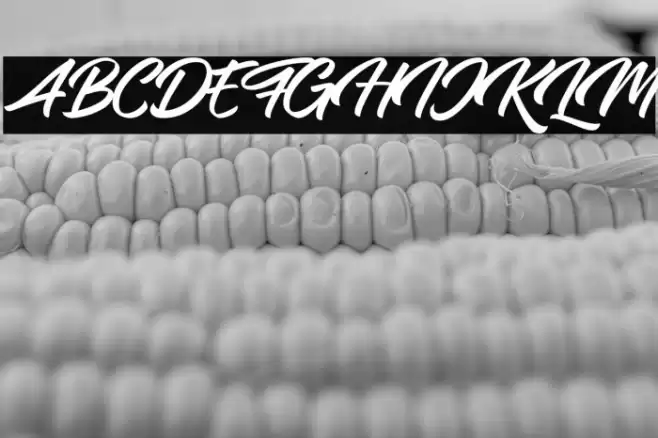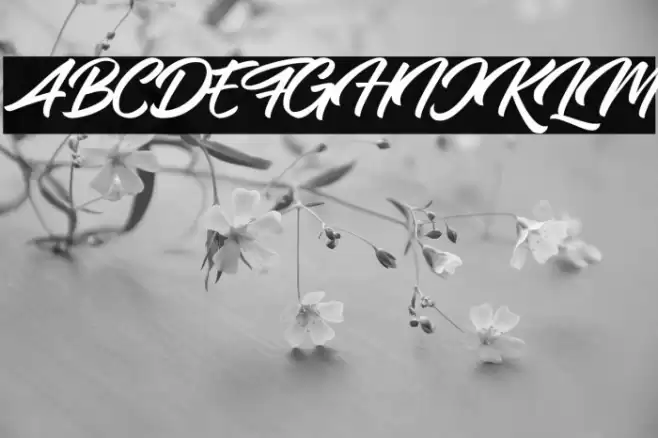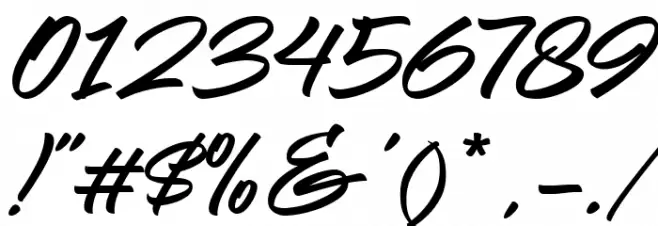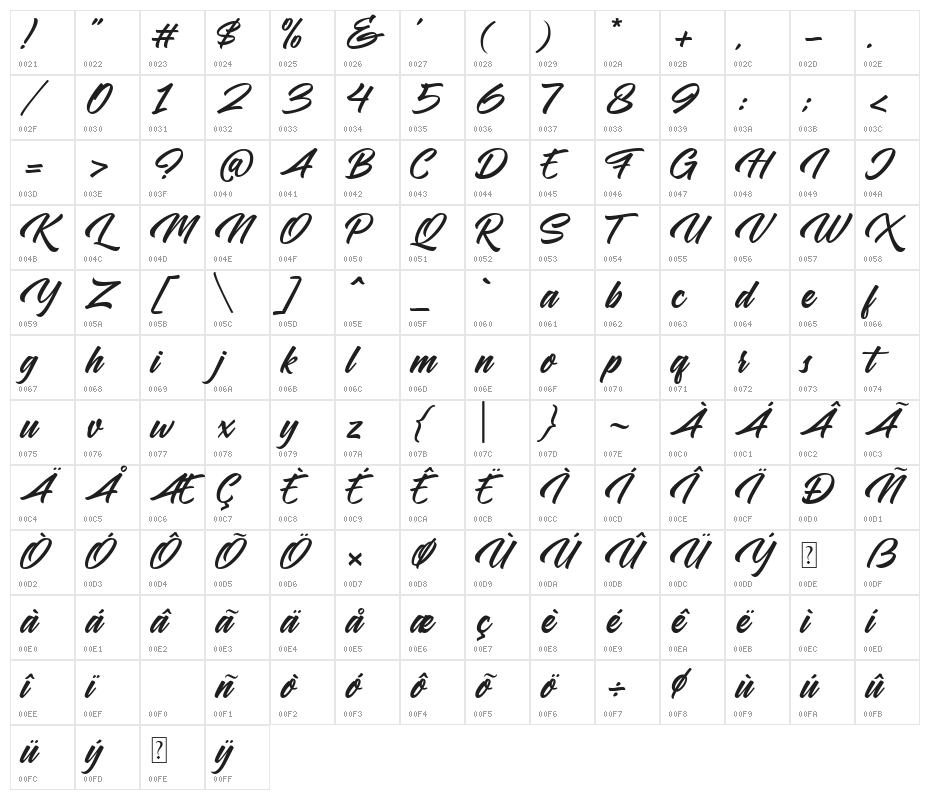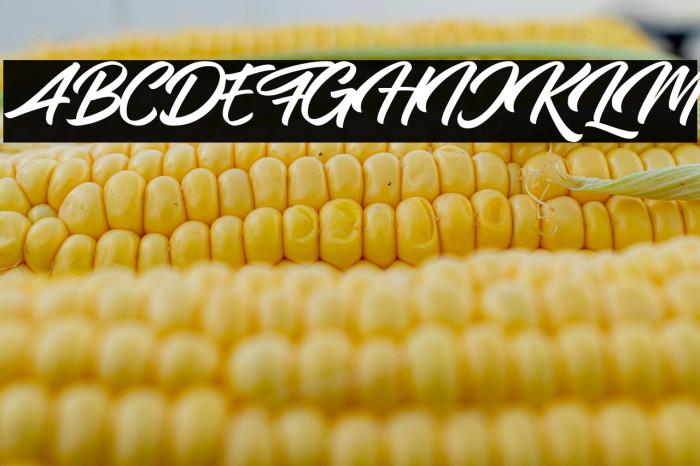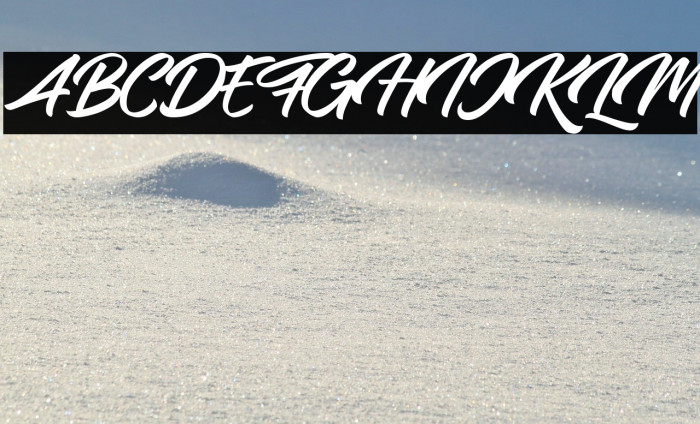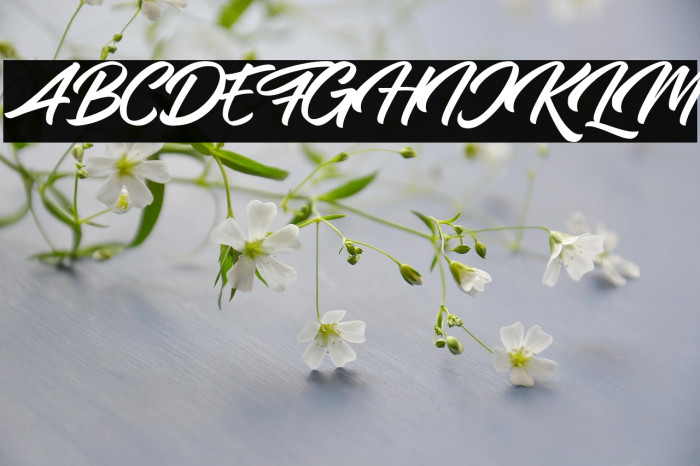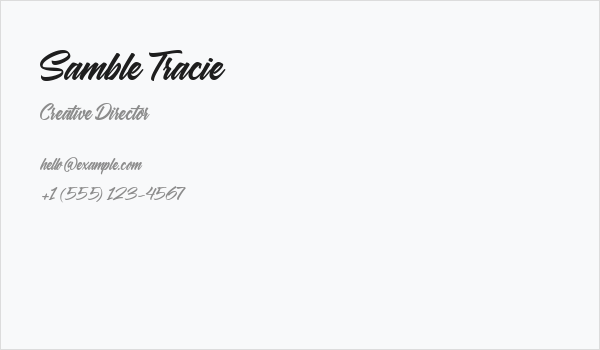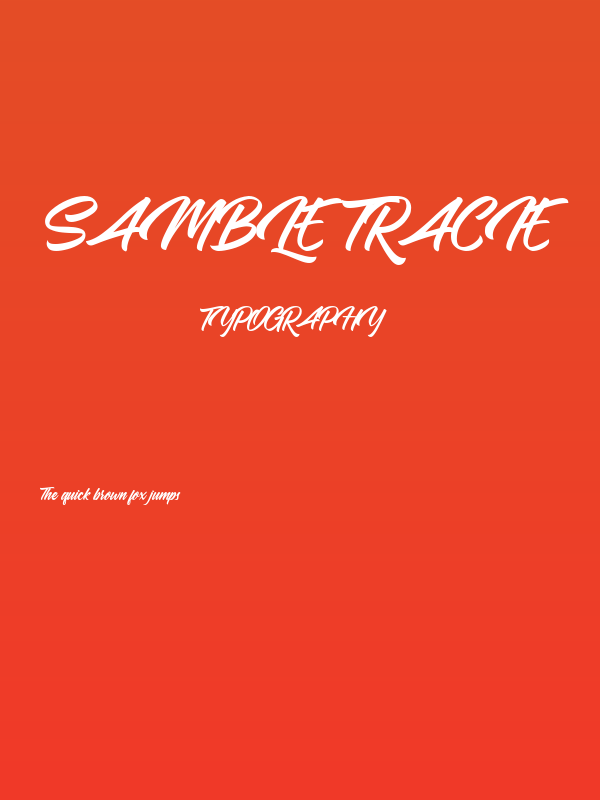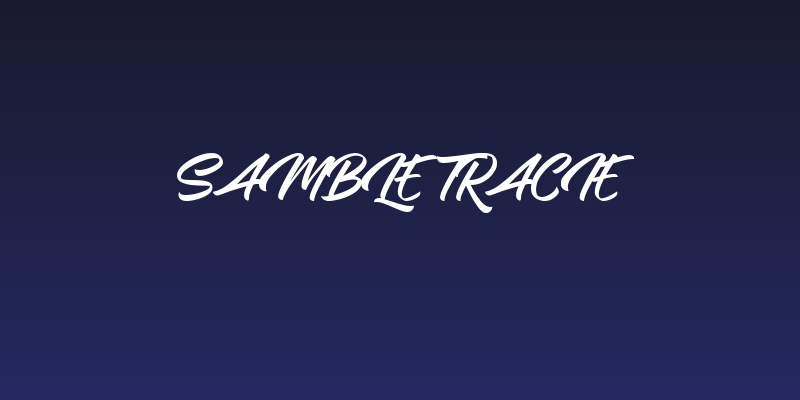
Samble Tracie Font
Samble Tracie Description
This font features a bold, flowing script style that exudes elegance and dynamism. The characters are interconnected, creating a seamless and fluid appearance. The uppercase letters are slightly larger and more pronounced, while the lowercase letters maintain a consistent flow. The numerals are designed with the same cursive flair, ensuring uniformity across all characters. Special characters are integrated smoothly, maintaining the overall aesthetic. The strokes are thick and consistent, providing a strong visual impact. This font is ideal for projects that require a touch of sophistication and style.
A bold, flowing script font with interconnected characters and a dynamic style from Uncategorized fonts.
- Proposed Projects: Ideal for wedding invitations, branding, logos, and elegant packaging designs.
- Character Spacing: Tight
- Overall Style: Elegant
- Use Case: Logos, Invitations, Branding